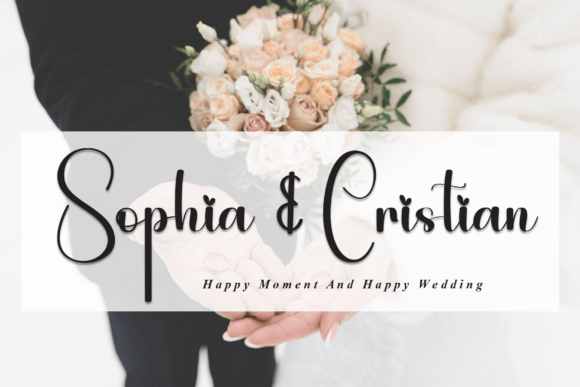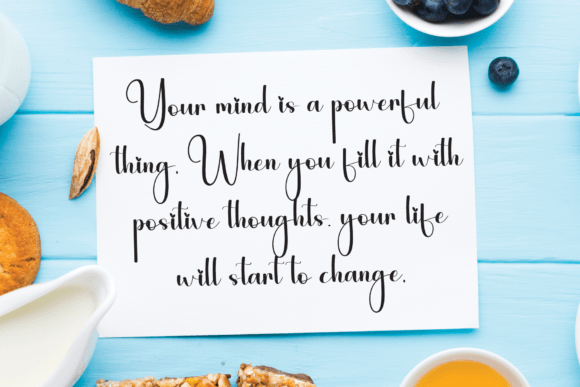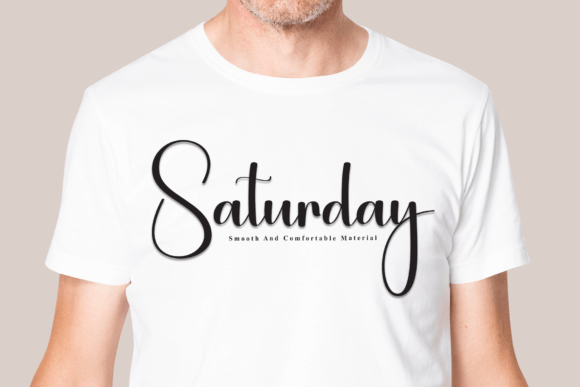
Introduction to Appreciation Font
Discover the charm of our exclusive, handcrafted display font – Appreciation.
This delightful font exudes a warm, friendly appeal, evoking a sense of nostalgia With its cute, playful strokes, Appreciation is just the ticket for designing stunning wedding invitations, heartfelt cards, or any creative painting that craves for a dash of fun.
Key Features of Appreciation Font
Why Choose Appreciation Font?
Appreciation Font offers exceptional quality and versatility, making it a valuable addition to your design toolkit. Whether you’re creating for personal projects or commercial use, Appreciation Font delivers professional results.